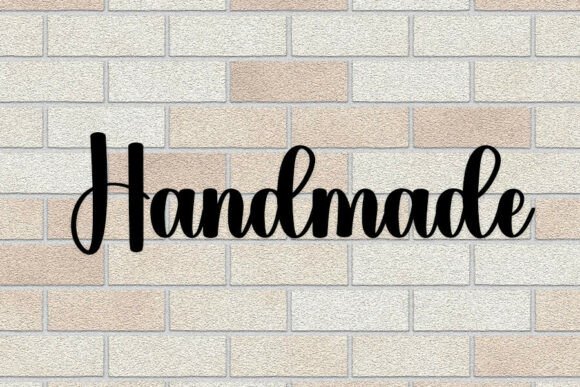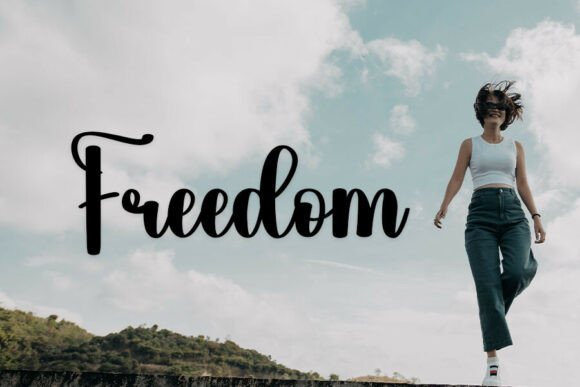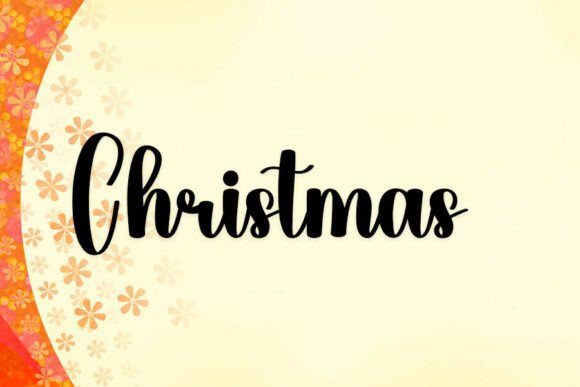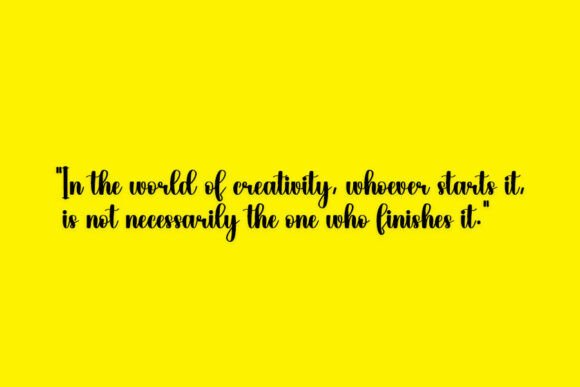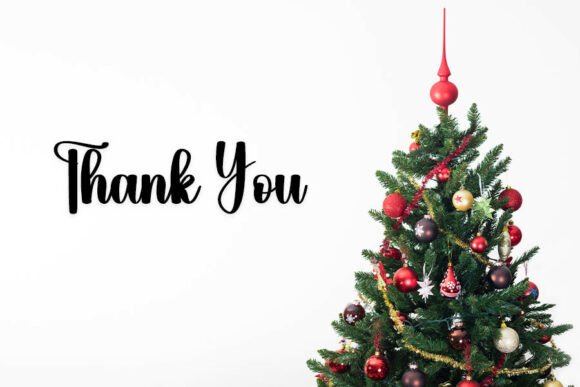
Introducing Beach Font: The Sweet and Elegant Handwritten Font for Your Design Needs
Are you looking for a font that can add a touch of elegance and romance to your designs? Look no further than Beach Font, a beautiful and cursive handwritten font that is perfect for a variety of design projects. With its gentle and sweet appearance, Beach Font is sure to make your designs stand out and leave a lasting impression.
What Makes Beach Font Special?
Beach Font is a unique and stylish font that is designed to add a touch of sophistication and elegance to your designs. Its cursive and handwritten style gives it a personal and intimate feel, making it perfect for designs that require a more personal touch. Whether you’re working on a branding project, a wedding invitation, or a greeting card, Beach Font is sure to impress.
One of the things that sets Beach Font apart from other fonts is its versatility. It can be used for a wide range of design projects, from logos and branding to wedding invitations and greeting cards. Its elegant and cursive style makes it perfect for designs that require a touch of sophistication and glamour.
Beach Font is a highly versatile font that can be used for a wide range of design projects. Here are just a few examples of how you can use Beach Font in your designs:
- Branding: Use Beach Font to create a unique and memorable brand identity that will set your business apart from the competition.
- Wedding Invitations: Add a touch of elegance and romance to your wedding invitations with Beach Font.
- Greeting Cards: Use Beach Font to create beautiful and heartfelt greeting cards for special occasions.
- Fashion: Beach Font is perfect for fashion designs, such as lookbooks and marketing promotions.
- Logo Design: Use Beach Font to create a unique and memorable logo that will represent your brand.
Why Choose Beach Font?
There are many reasons why Beach Font is a great choice for your design needs. Here are just a few:
- Elegant and Cursive: Beach Font has a beautiful and elegant cursive style that will add a touch of sophistication to your designs.
- Versatile: Beach Font can be used for a wide range of design projects, from branding to wedding invitations.
- Easy to Read: Beach Font is highly legible, making it perfect for designs that require a clear and easy-to-read font.
- Unique: Beach Font is a unique and stylish font that will set your designs apart from the competition.
How to Use Beach Font in Your Designs
Using Beach Font in your designs is easy. Here are just a few tips to get you started:
- Pair it with Other Fonts: Beach Font looks great when paired with other fonts. Try pairing it with a bold and modern font for a unique contrast.
- Use it for Headings: Beach Font is perfect for headings and titles. Use it to add a touch of elegance and sophistication to your designs.
- Experiment with Colors: Beach Font looks great in a variety of colors. Experiment with different colors to find the one that works best for your design.
Beach Font is a beautiful and elegant handwritten font that is perfect for a variety of design projects. Its cursive and sweet style makes it a great choice for designs that require a touch of sophistication and romance. With its versatility and ease of use, Beach Font is a great addition to any designer’s toolkit. So why wait? Download Beach Font today and start creating stunning designs that will leave a lasting impression.